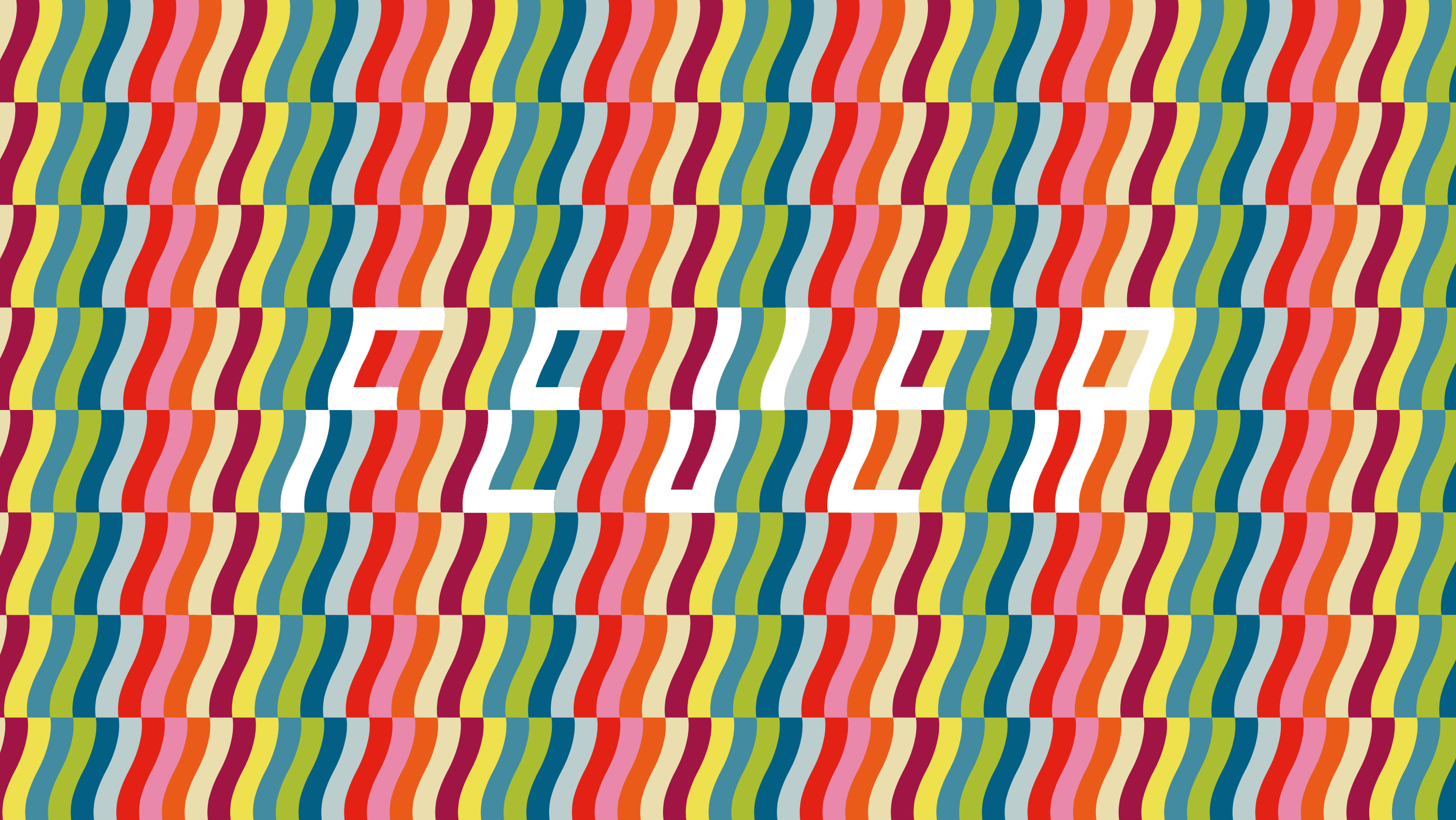
Fever
Created a vibrant pattern inspired by the classic colors of early comics, with a modern twist. The letters become part of the pattern, creating a design that changes when viewed up close or from a distance.